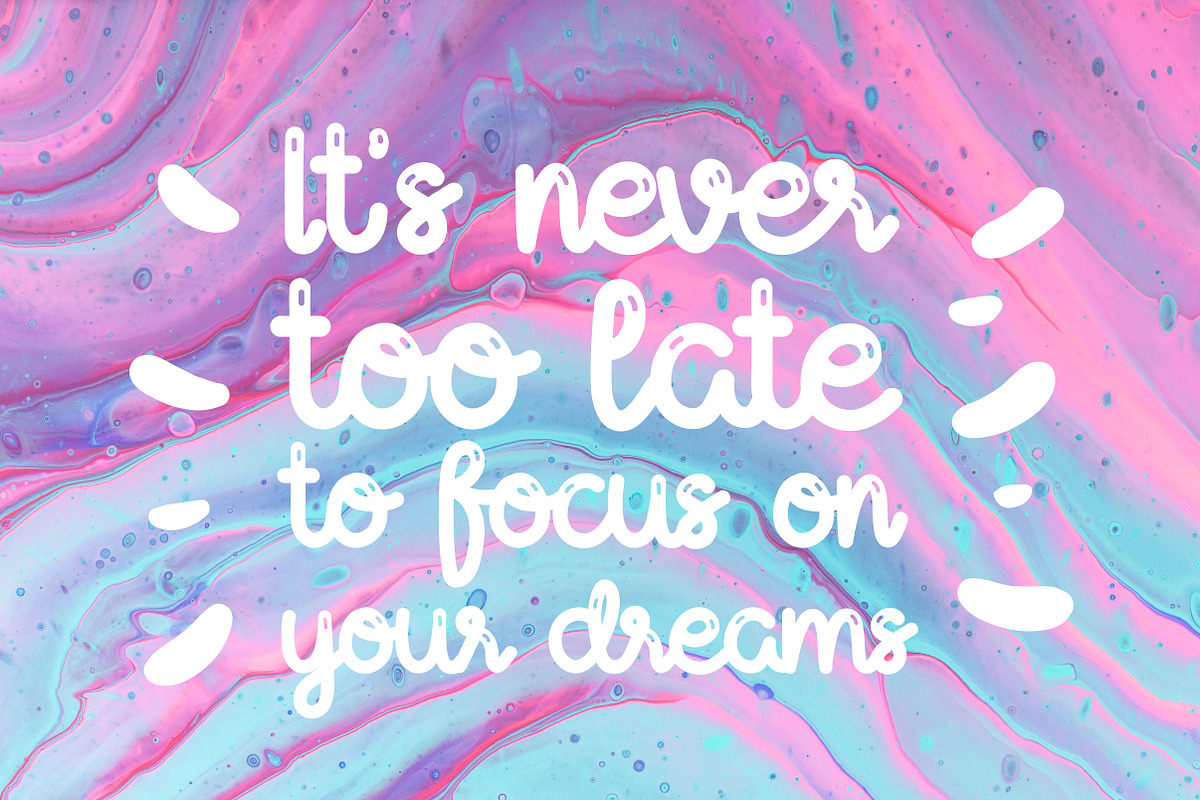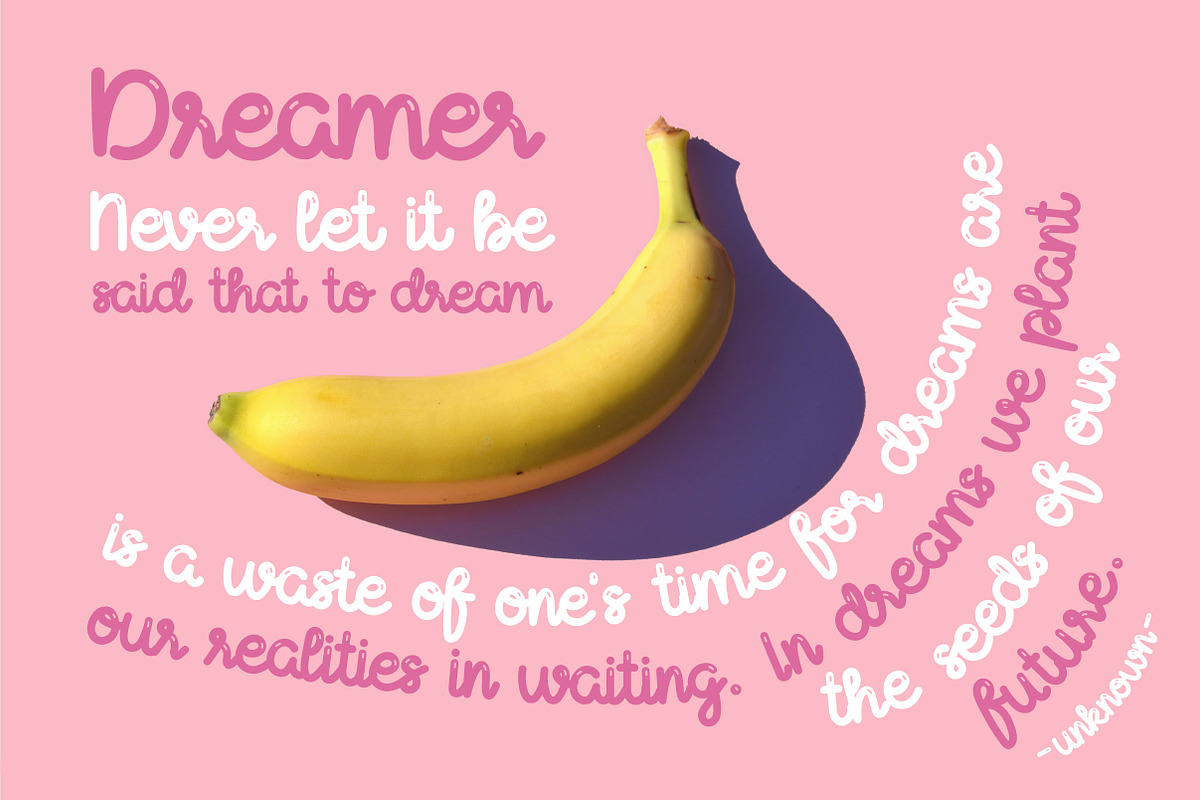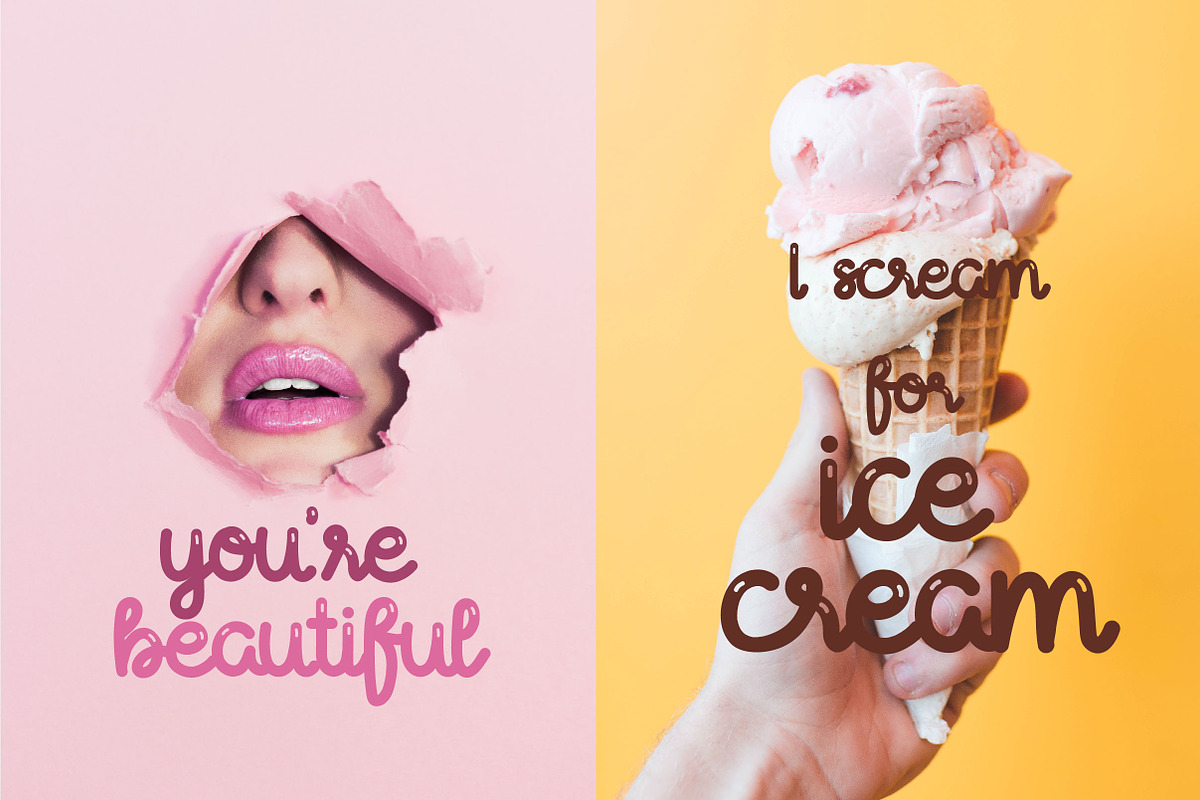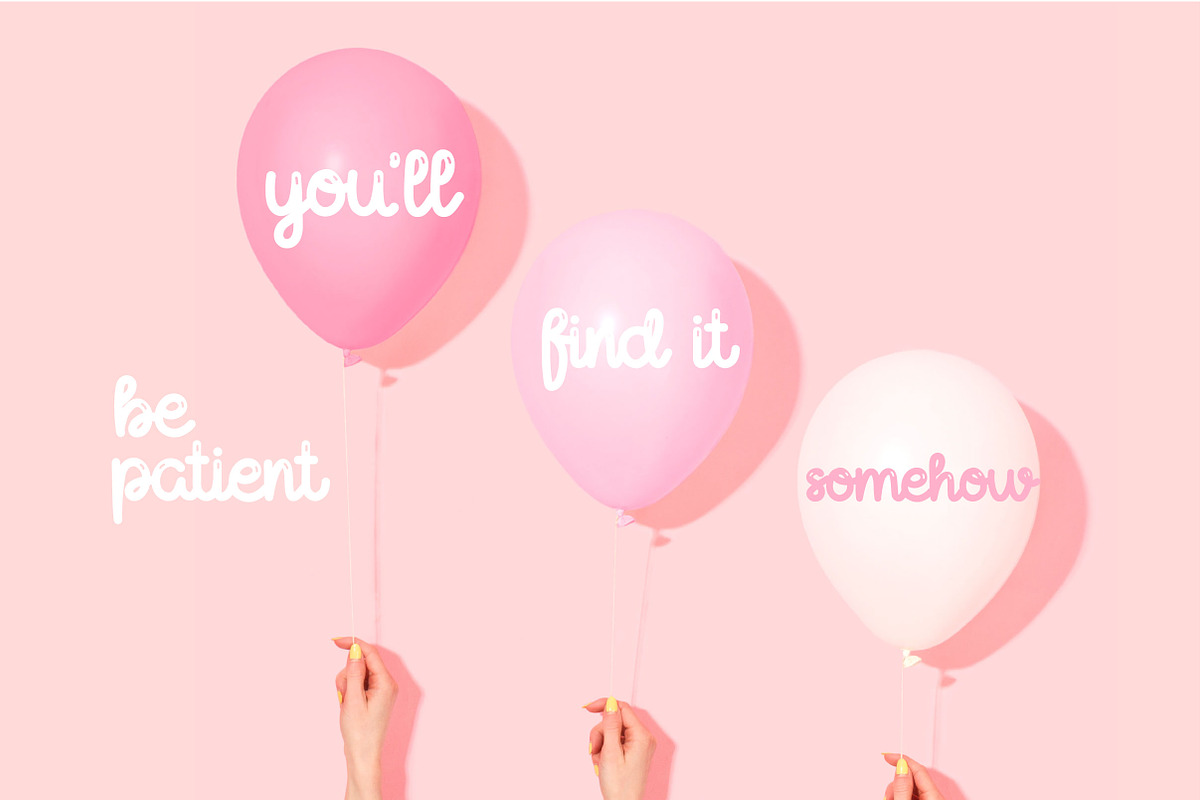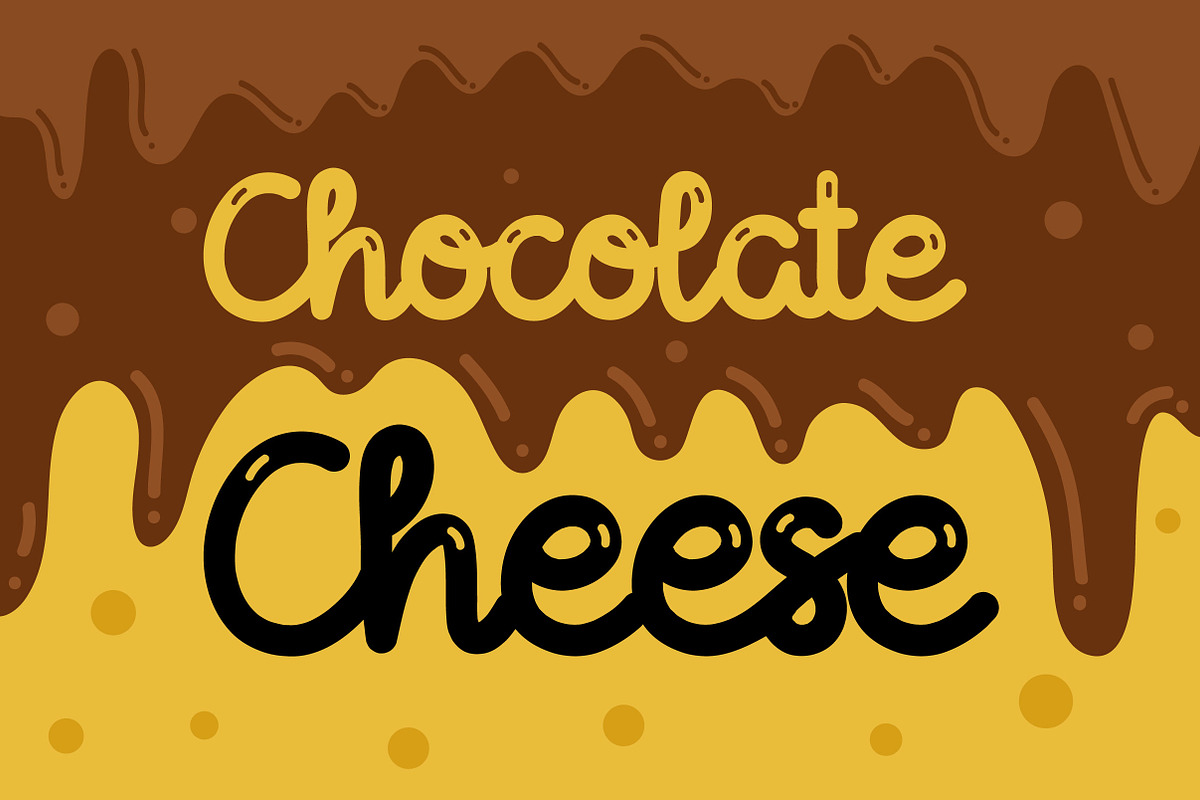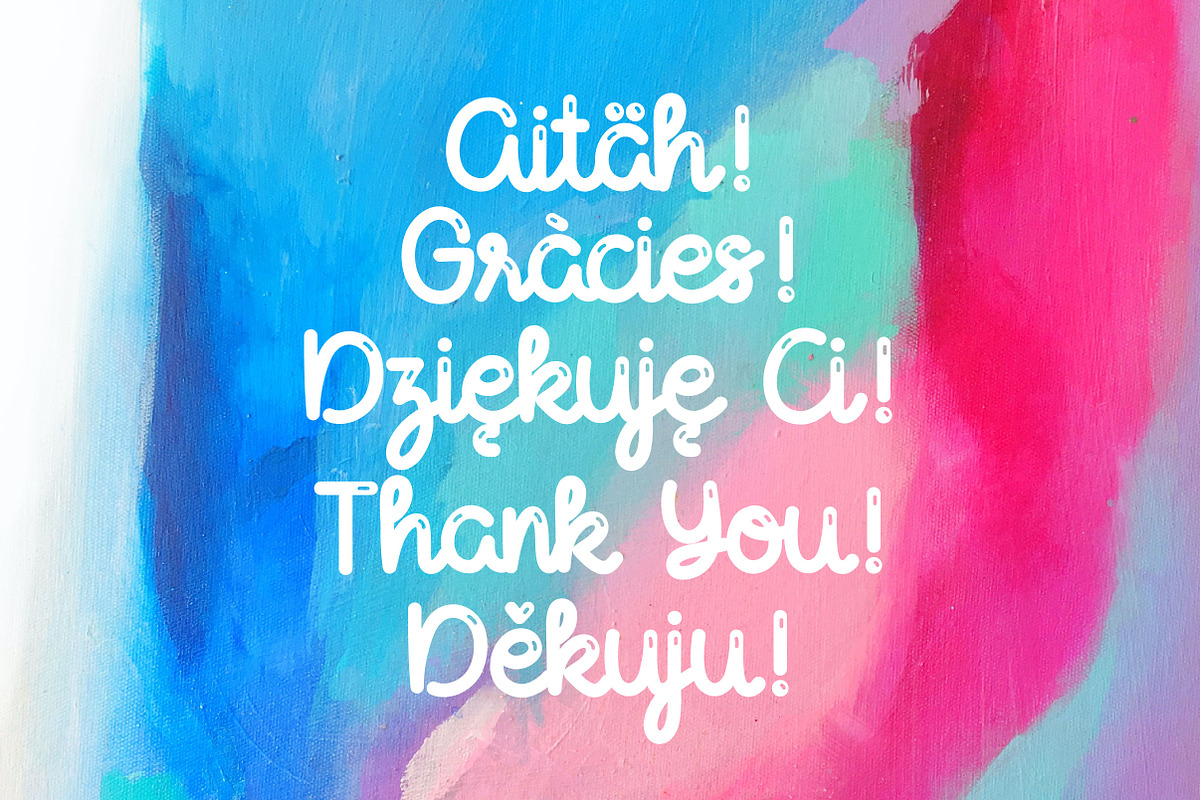
Chocolate Cheese Font
Chocolate Cheese is a script font that inspired by melting chocolate.
Chocolate Cheese Font by caocastudio fits naturally into Branding, posters, packaging, typography.